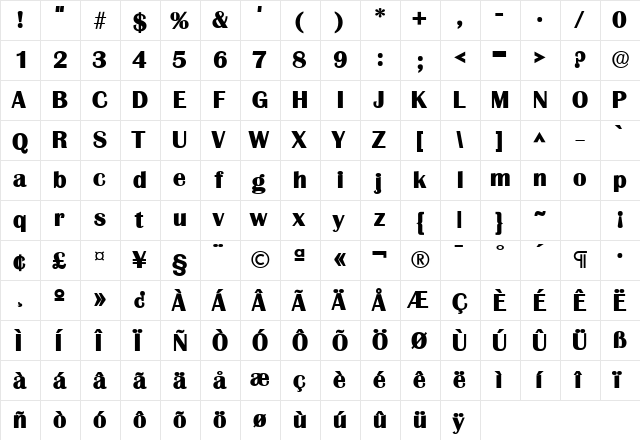
Grenoble Heavy SF Bold
Design Context for Grenoble Heavy SF Typeface
Grenoble Heavy SF takes a measured approach to typography — its balanced proportions and neutral character make it a reliable workhorse for both digital and print work. The heavy weight commands attention and anchors typographic hierarchies.